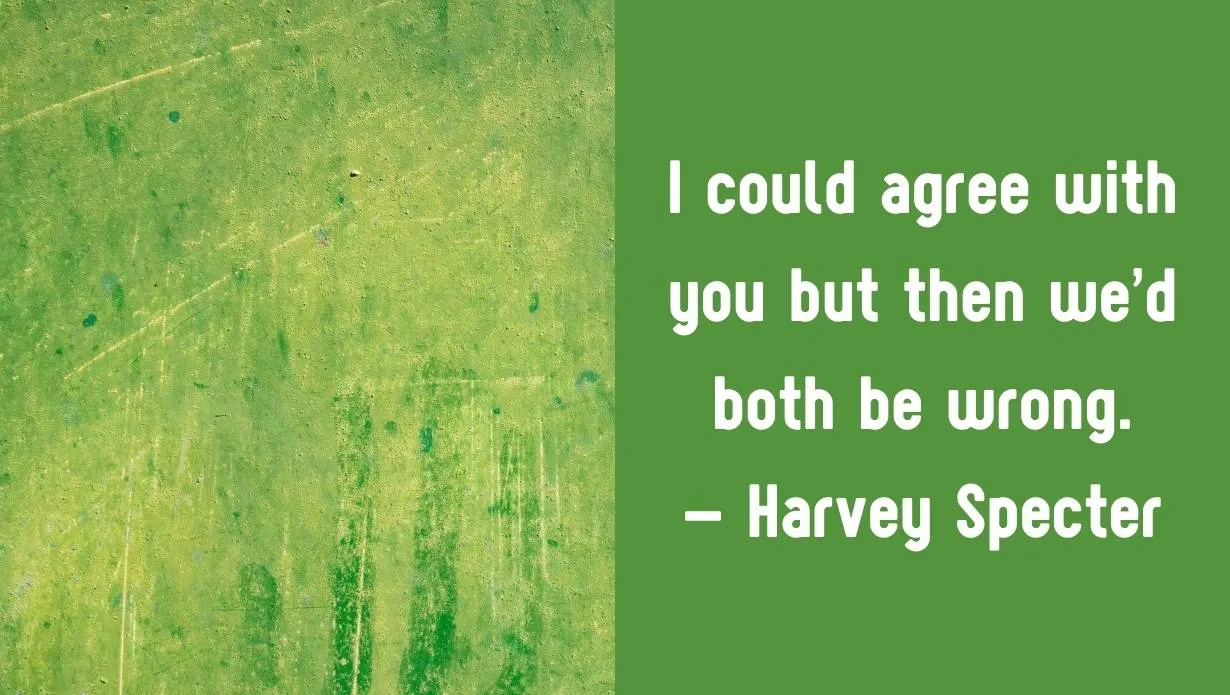
let’s introduce to you the one another famous typeface that is known as the name of Sugo Font. This typeface is a member of the Sans Serif typeface family. It was designed by a notable graphic designer Francesco Canovaro. This wonderful font style was published by Zetafonts.
This typeface has a very elegant and outstanding texture look appearance. It will make your designs look more attractive and eye-catching for the users. The alternative font of this typeface is Gloucester Font.
| Name | Sugo Font |
| Designer | Francesco Canovaro |